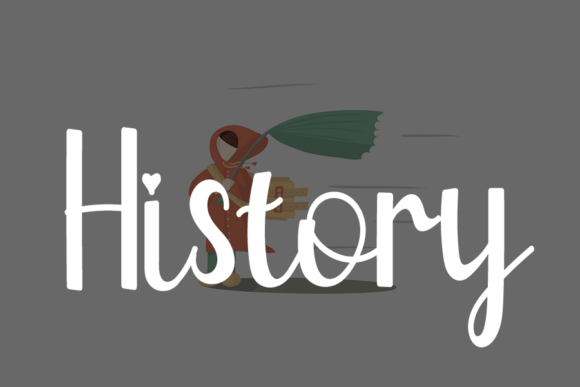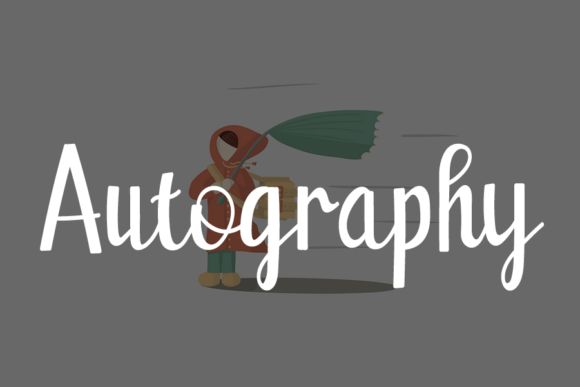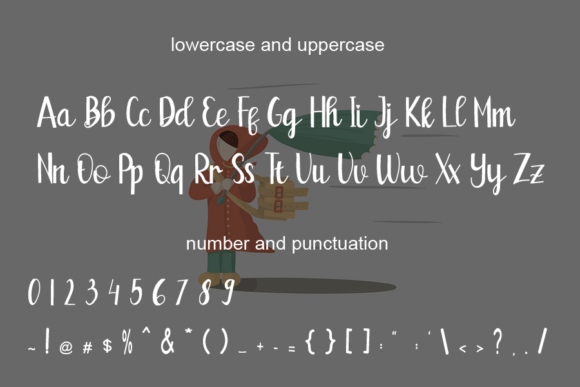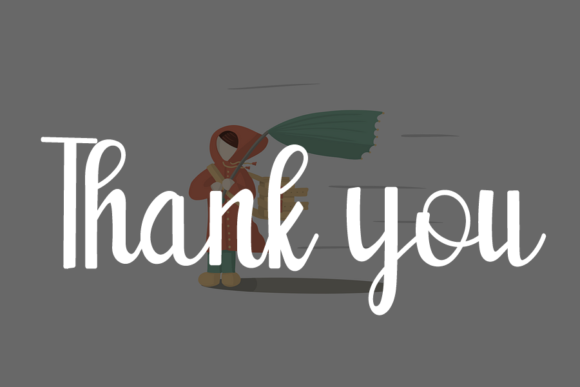
Bellany Font
Bellany is an elegant and modern handwritten font that can elevate the look of any creative project! Use it for wedding invitations, birthday cards, thank you notes, apparel designs, and other projects that need a personal touch!